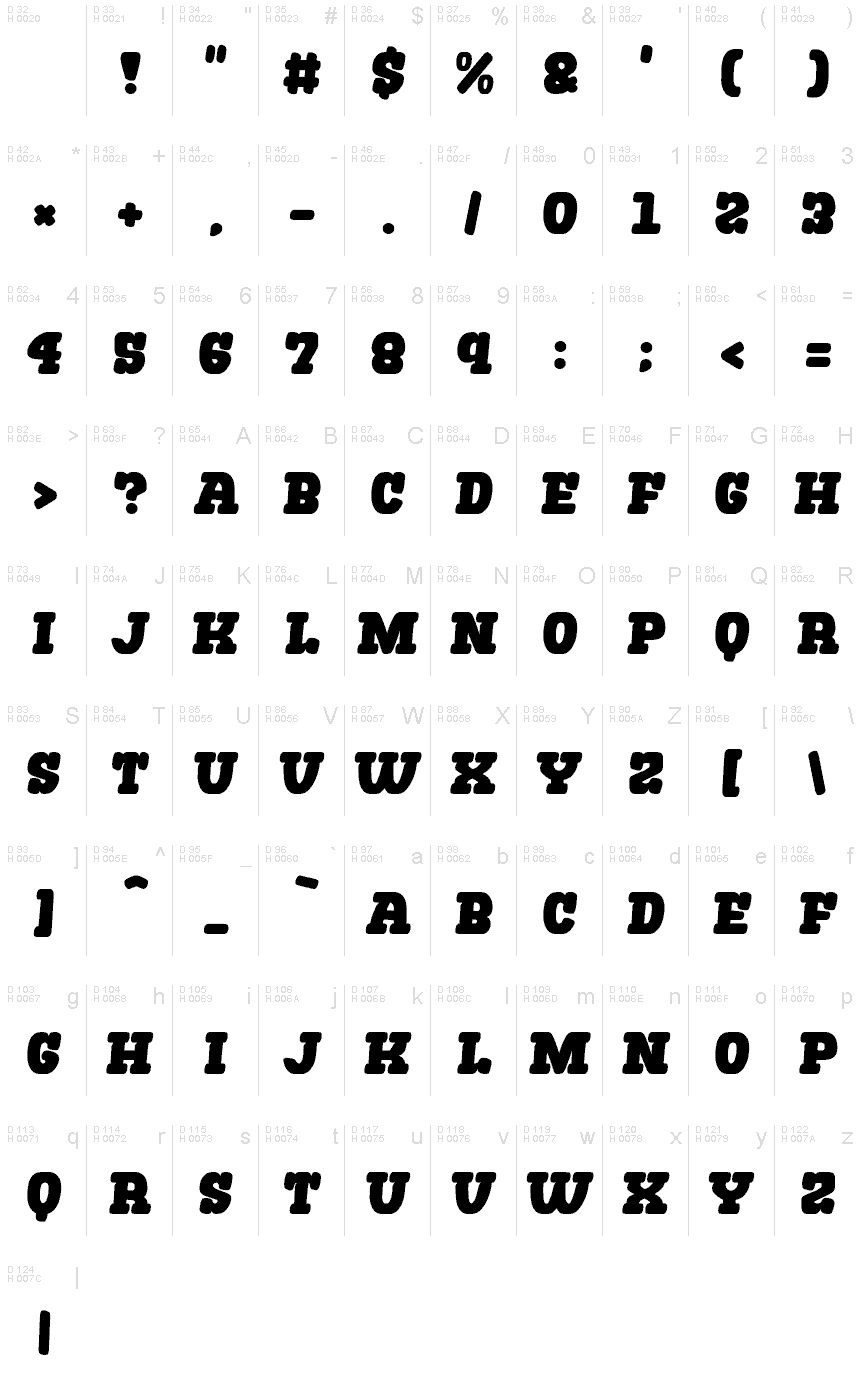
Showa Source Curry
Showa Source Curry font is designed by Goma Shin with rough plastic stamps used in Japan as inspiration. The bold display font has a retro-inspired look which brings attention thanks to its decorative appearance. Its theatrical flair and large vintage aesthetic are striking, essential for stealing the most glances wherever you use this typeface.
Use Showa Source Curry font made of uppercase characters in newspaper headlines, packaging titles, magazine covers or poster designs. Even billboard designs for coffee shops, grocery stores and bakeries can gain from utilizing this free display font.